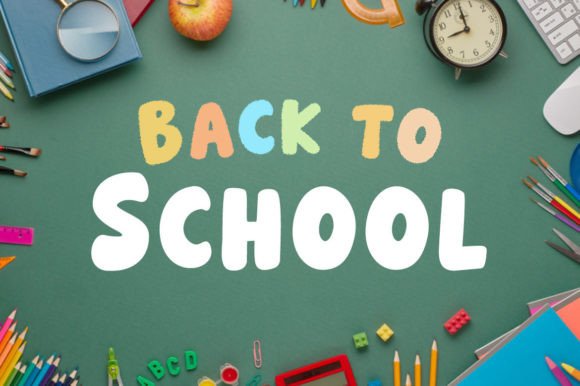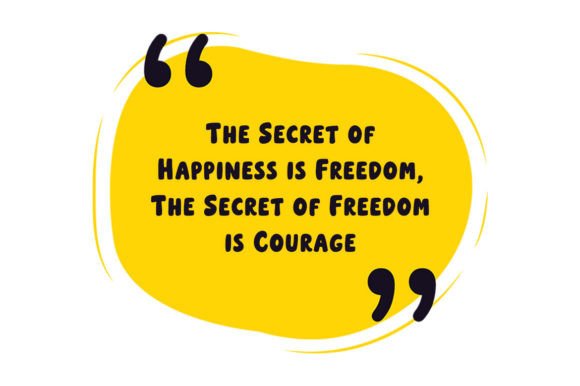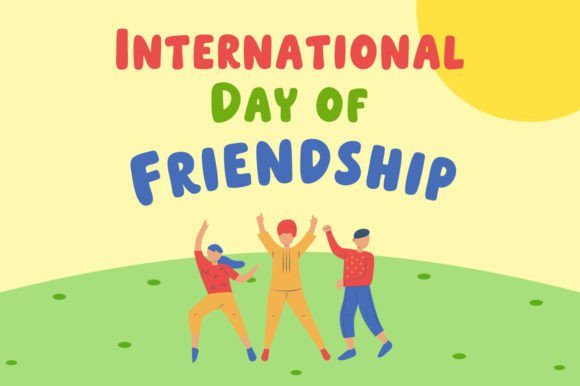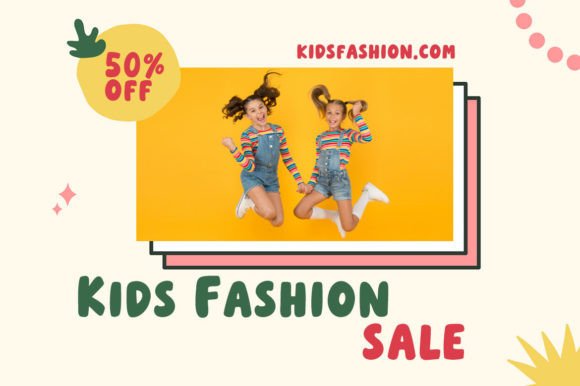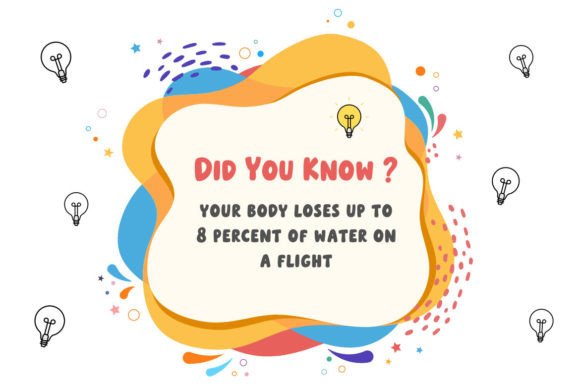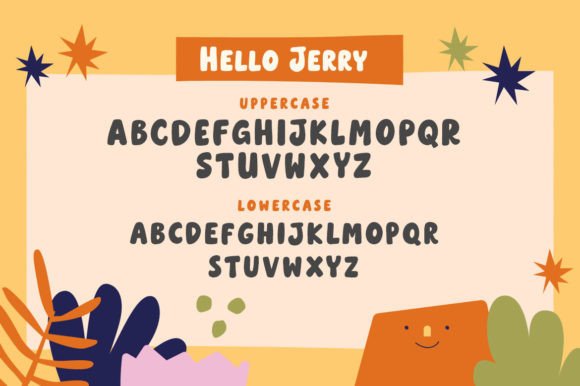
Meet the Font That Will Make Your Designs Pop
Have you ever stared at a blank canvas, waiting for inspiration to strike? You know, that moment when everything clicks and your creativity goes into overdrive? For designers, those moments are what make the job worth it. And what if I told you there’s a font that can help unlock those moments and take your designs to the next level?
Enter Hello Jerry Font, a playful and bold display font designed to add a touch of whimsy to any project. Its chunky letters and quirky shapes are perfect for logos, headlines, and packaging designs that require a bold and lively personality. With Hello Jerry Font, you’ll be able to unleash your creativity and create designs that truly stand out from the crowd.
- Font Family: Hello Jerry Font is a sans-serif font family designed for digital use.
- Resolution: Designed for use at resolutions up to 300 DPI, making it suitable for digital displays.
- Unique Characteristics: Hello Jerry Font features a clean and modern design with a subtle rounded edge, giving it a friendly and approachable feel.
Hello Jerry Font Review
Overall, I think Hello Jerry Font is a solid, well-designed sans-serif typeface. Here’s what I like about it: ✨
- It’s got a modern feel to it, which makes it perfect for digital design and web projects.
- The font is highly legible, even at smaller sizes, which is a must for any font.
- The font’s x-height is well-balanced, making it easy to read for long periods of time.
However, like any font, Hello Jerry Font has its limitations: ⚠️
- The font’s italic and bold styles could be more consistent with the regular style.
- The font’s condensed styles could be more extensive, especially for narrower layouts.
- The font’s design may not be suitable for all types of projects, such as traditional printing or high-end branding.
Overall, I think Hello Jerry Font is a great addition to any designer’s toolkit. It’s easy to use, highly legible, and versatile. While it may have some limitations, it’s definitely worth considering for your next design project.
Here are some tips for getting the most out of “Hello Jerry Font”:
- Use it for titles and headings to add a playful touch to your designs.
- Pair it with bold and colorful fonts to create a fun and energetic look.
- Experiment with different font sizes and styles to create a unique and eye-catching effect.
“Hello Jerry Font” is commonly used for:
- Playful and creative designs.
- Children’s books and educational materials.
- Marketing and advertising materials that need a fun and energetic touch.
Creative Projects Using Hello Jerry Font
Create unique and playful wedding invitations with the Hello Jerry Font. This project combines the font’s quirky charm with elegant design elements to make a memorable impression.
Is the Hello Jerry Font available in different weights and styles?
Yes, the Hello Jerry Font is available in multiple weights (Light, Regular, Bold, Black) and styles (Italic, Oblique). You can use the font’s OpenType features to access these variations and create custom typography for your designs.